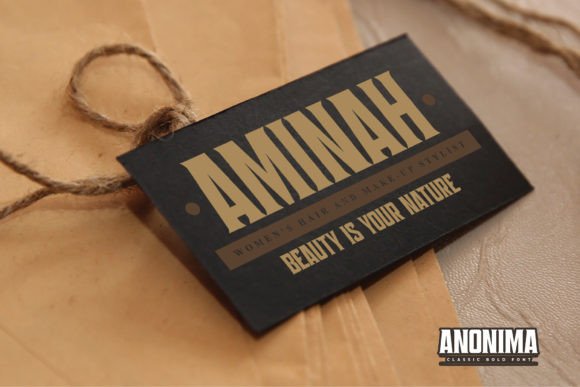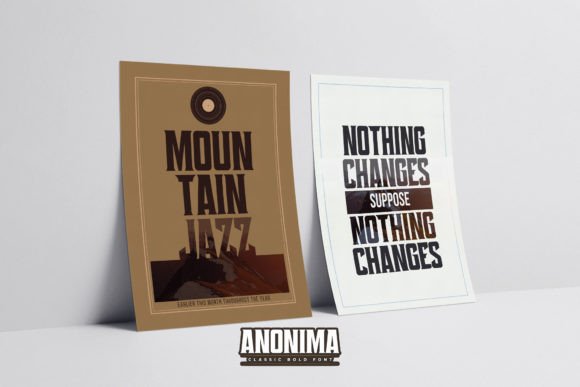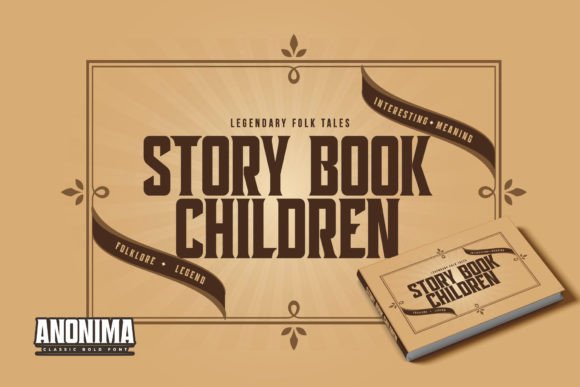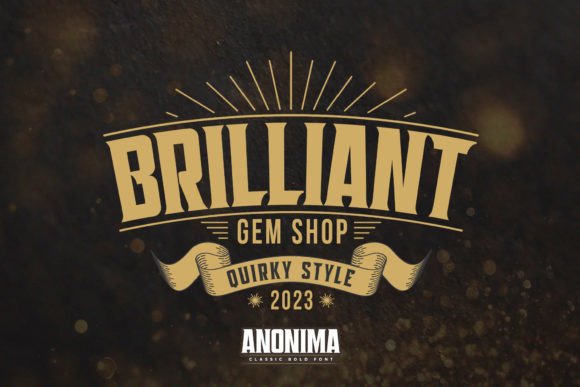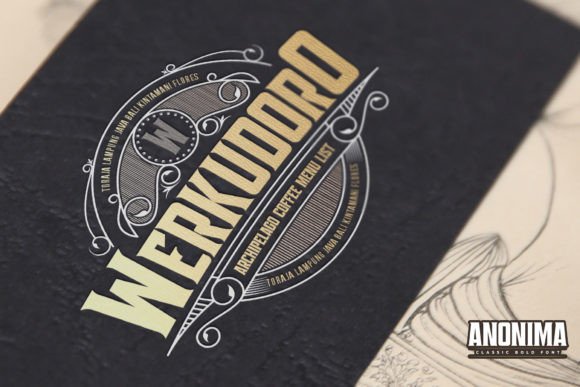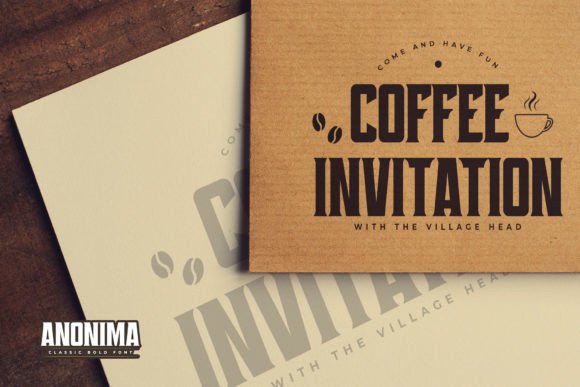
Introducing Anonima Font: A Bold and Assertive Serif Font for Your Creative Projects
In the world of typography, a font can make or break a design. It’s the foundation upon which your creative vision is built, and choosing the right one can be a daunting task. If you’re a designer, craftsperson, or simply someone who appreciates the art of typography, you’re in luck. Anonima font is here to revolutionize your font library with its bold and assertive serif style.
What is Anonima Font?
Anonima is a bold and assertive serif font designed to make a statement. Its robust and confident appearance makes it perfect for a wide range of creative projects, from branding and advertising to packaging and editorial design. With Anonima, you can add a touch of sophistication and elegance to your work, elevating it to new heights.
Key Features of Anonima Font
- Bold and Assertive: Anonima’s bold and assertive style demands attention, making it perfect for headlines, titles, and emphasis.
- Serif Style: The font’s classic serif design adds a touch of sophistication and elegance to any project.
- Versatile: Anonima can be used for a wide range of creative projects, from digital designs to print materials.
- Highly Legible: The font’s clear and concise design ensures that your message is conveyed with clarity and precision.
Why Choose Anonima Font?
With so many fonts available, why choose Anonima? The answer lies in its incredible versatility and potential to elevate any creation. Whether you’re working on a branding project, creating a poster, or designing a website, Anonima font can help you achieve your goals. Its bold and assertive style makes it perfect for:
- Headlines and Titles: Anonima’s bold style makes it perfect for grabbing attention and conveying your message.
- Branding and Identity: The font’s classic serif design and bold style make it an excellent choice for logos, business cards, and other branding materials.
- Editorial Design: Anonima’s high legibility and classic design make it perfect for articles, blog posts, and other written content.
How to Use Anonima Font in Your Designs
Using Anonima font in your designs is easy. Here are a few tips to get you started:
- Pair it with Other Fonts: Anonima pairs well with a variety of fonts, from sans-serif to script fonts.
- Experiment with Sizes: Anonima’s bold style makes it perfect for headlines, but it can also be used for body text.
- Play with Colors: The font’s classic design makes it perfect for use with a variety of colors and textures.
In conclusion, Anonima font is a bold and assertive serif font that can elevate any creative project. Its versatility, high legibility, and classic design make it perfect for a wide range of applications. Whether you’re a designer, craftsperson, or simply someone who appreciates typography, Anonima font is an excellent addition to your font library.